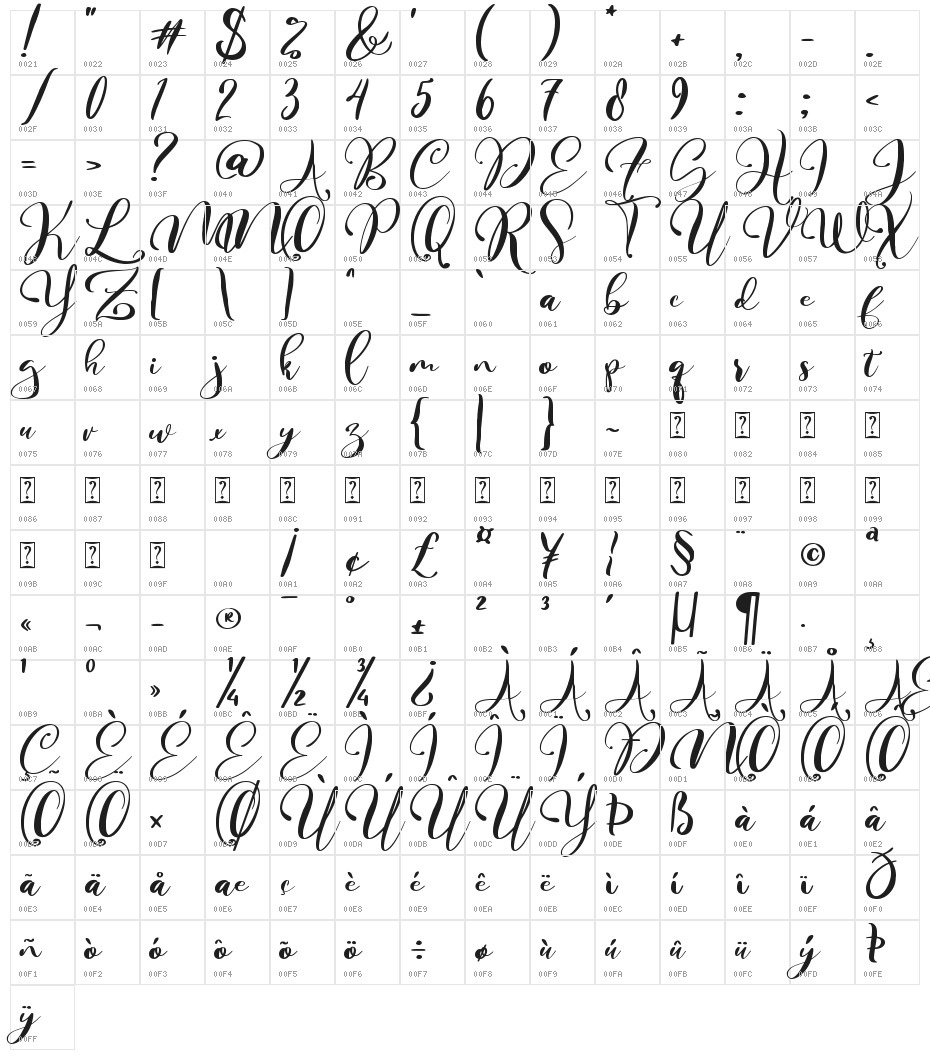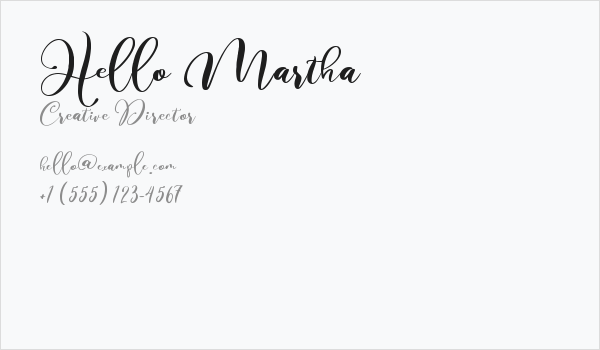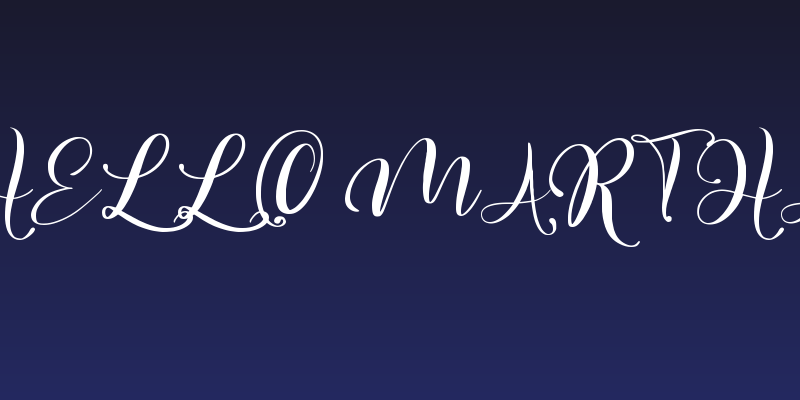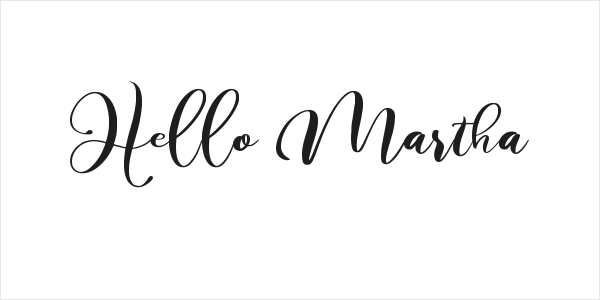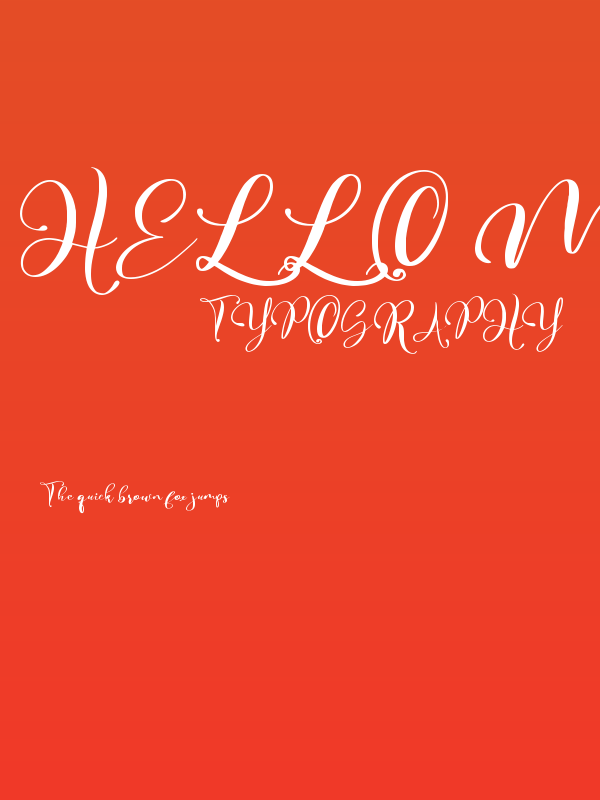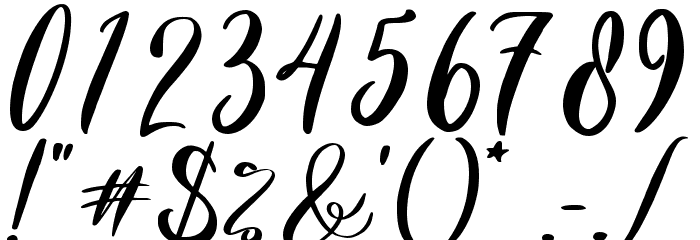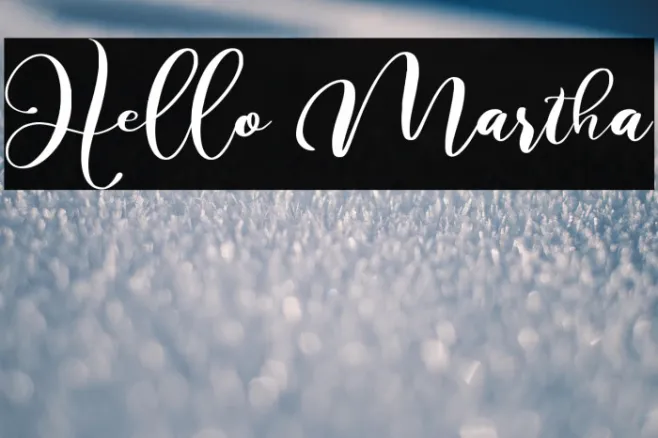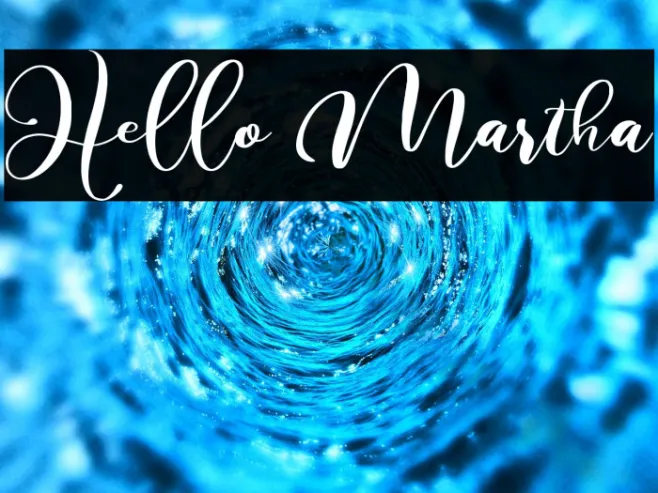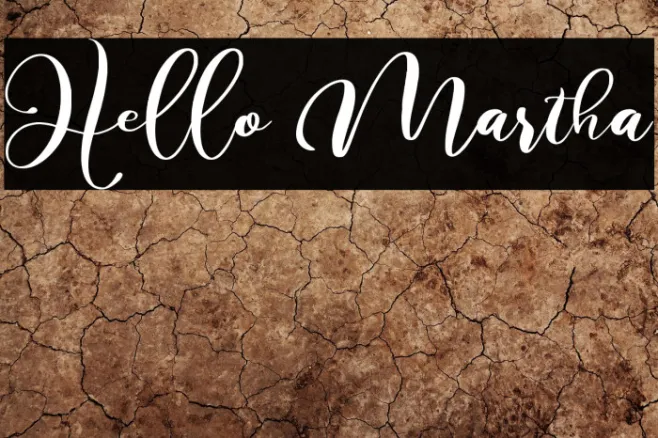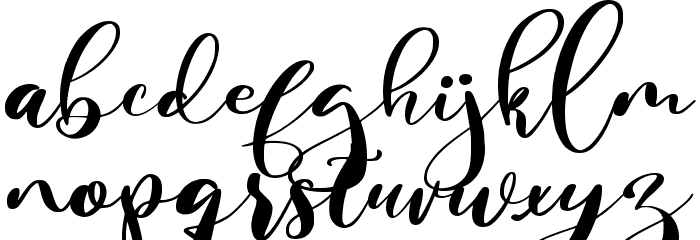
Hello Martha Font
Hello Martha Description
This elegant script font features a flowing, cursive style with a modern twist. The uppercase letters are characterized by their graceful loops and swirls, while the lowercase letters maintain a consistent fluidity, making it perfect for creating a sophisticated and stylish look. The numbers and special characters are designed with the same attention to detail, ensuring a cohesive appearance across all elements. The font's strokes vary in thickness, providing a dynamic contrast that enhances its visual appeal. This font is ideal for projects that require a touch of elegance and flair, such as wedding invitations, branding, and high-end product packaging.
| Proposed Projects | Wedding invitations, branding, high-end product packaging, elegant logos. |